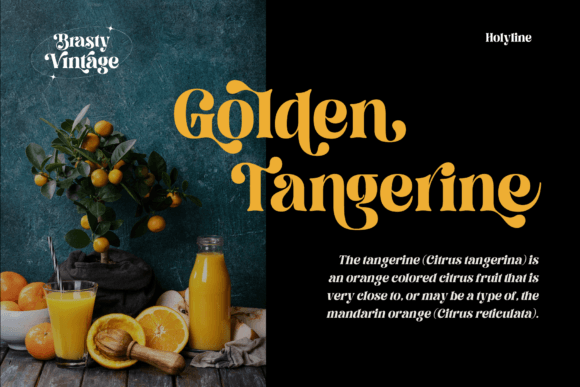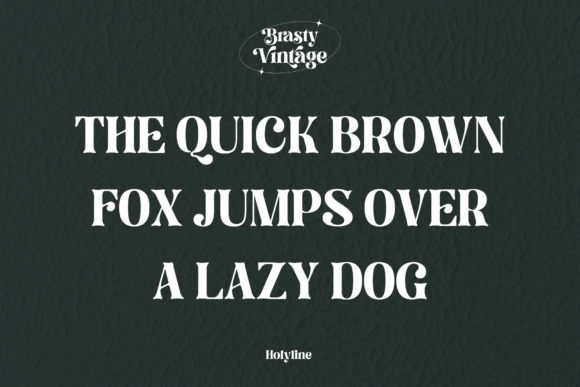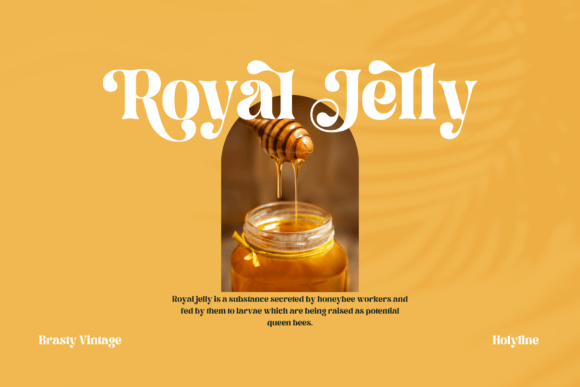
Introduction to Brasty Vintage Font
Introducing β€œBrasty Vintage” an exquisite vintage serif font, crafted with precision to evoke a sense of timeless elegance.
The intricate curves and delicate serifs of each letter embody a bygone era of sophistication and refinement Perfect for adding a touch of classic charm to any design project.
Key Features of Brasty Vintage Font
Why Choose Brasty Vintage Font?
Brasty Vintage Font offers exceptional quality and versatility, making it a valuable addition to your design toolkit. Whether you’re creating for personal projects or commercial use, Brasty Vintage Font delivers professional results.